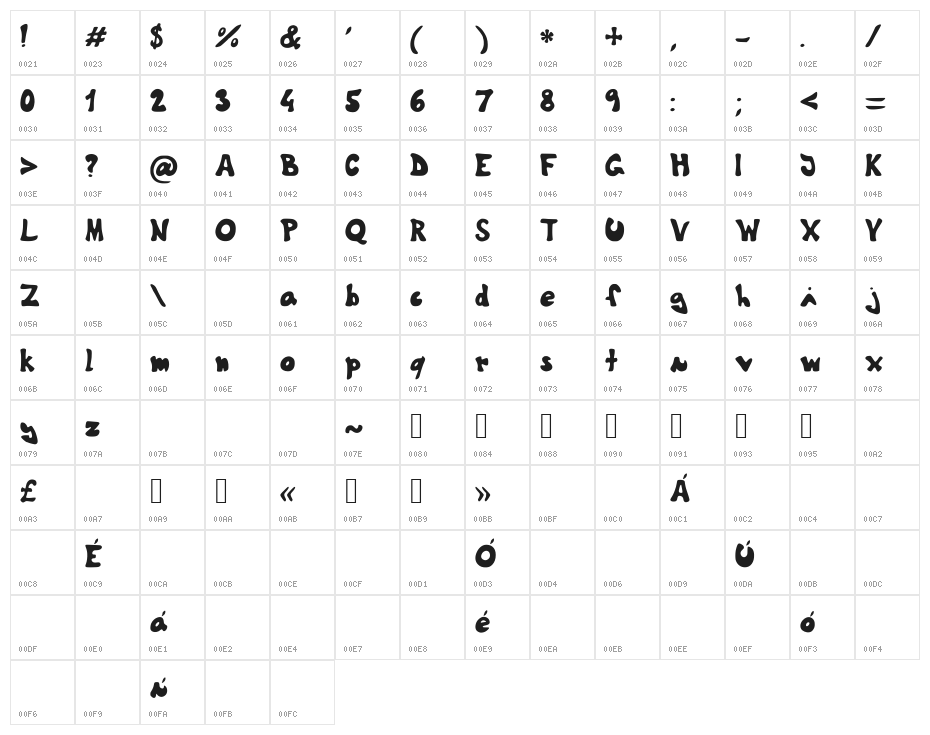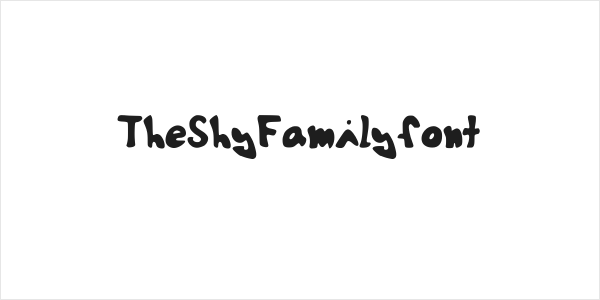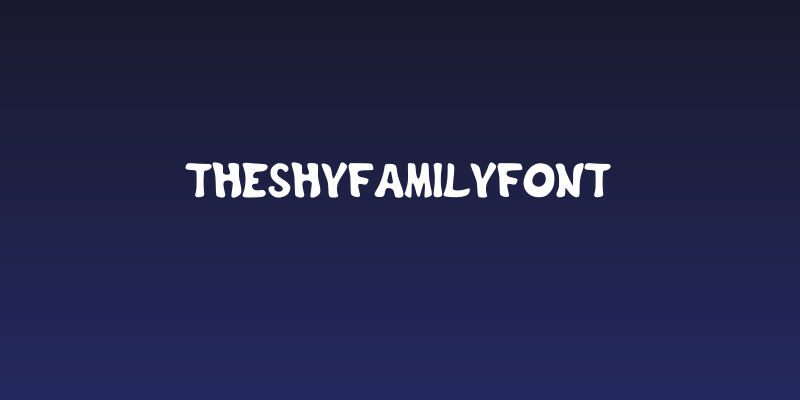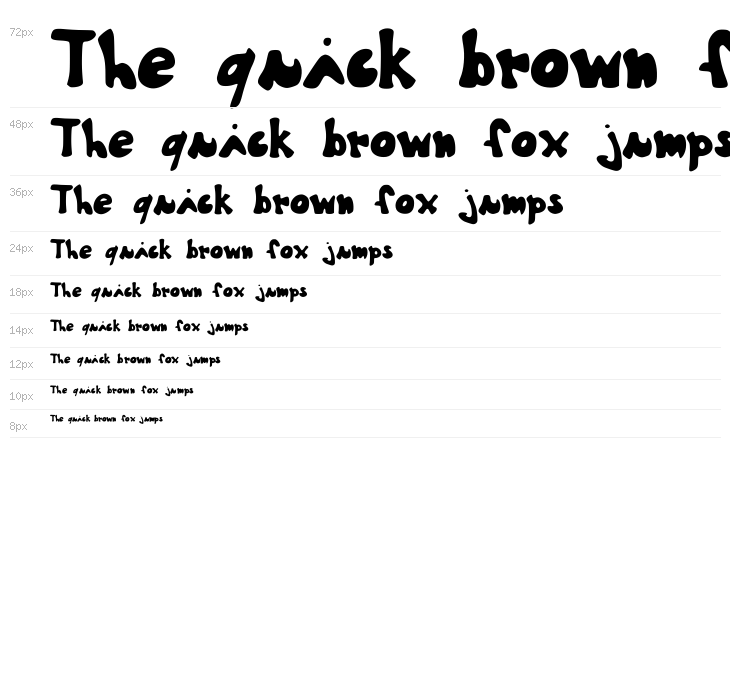
TheShyFamilyfont Font
TheShyFamilyfont Description
This playful and bold font features thick, rounded characters with a whimsical and informal style. The letters are slightly irregular, giving them a hand-drawn appearance that adds a touch of personality and charm. The font is characterized by its heavy weight and smooth curves, making it stand out in any design. The uppercase and lowercase letters maintain a consistent style, while the numbers and special characters are equally bold and expressive. This font's unique style makes it suitable for projects that require a fun and engaging visual element.
| Proposed Projects | Ideal for children's books, playful branding, posters, and creative invitations. |